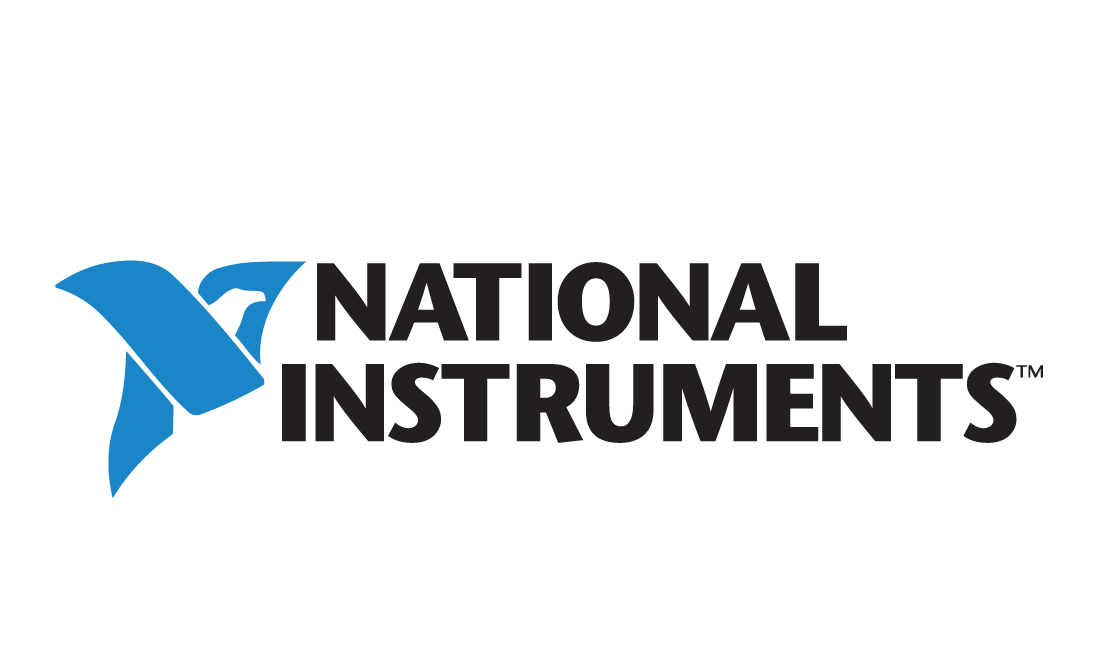
National Instruments Font
The logo of National Instruments features the ITC Stone Sans Bold font. Designed in 1987 by Sumner Stone, ITC Stone Sans is a humanist sans-serif typeface with a touch of calligraphy.